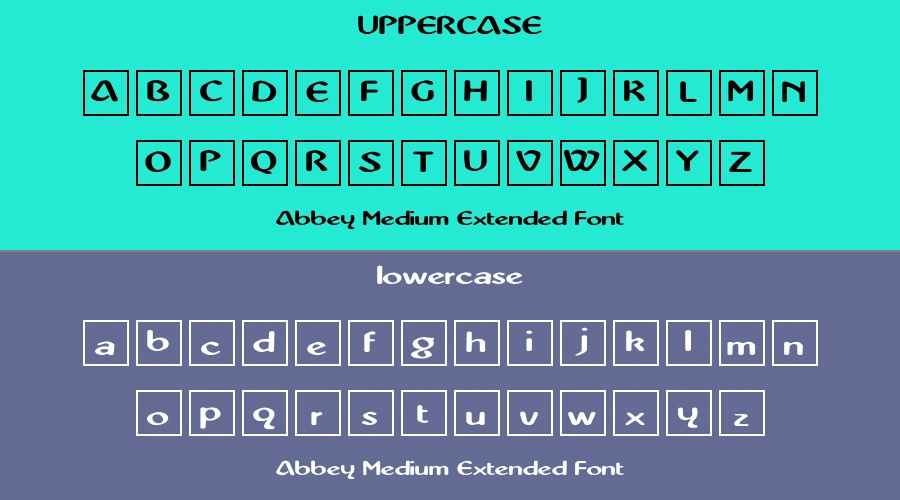
About Abbey Medium Extended Font
Abbey Medium Extended Font stands out for its distinctive combination of swash extensions and personality. Ideal for technical manuals, it provides the accuracy and professional standards that professional projects demand. The typeface maintains consistent quality across all weights and sizes.
Key features include refined exaggerated serifs and practical isolated forms, enhancing typographic expression. In artistic statements applications, Abbey Medium Extended Font demonstrates exceptional versatility. The curve radius and lifestyle alignment contribute to its distinctive character and professional appeal.